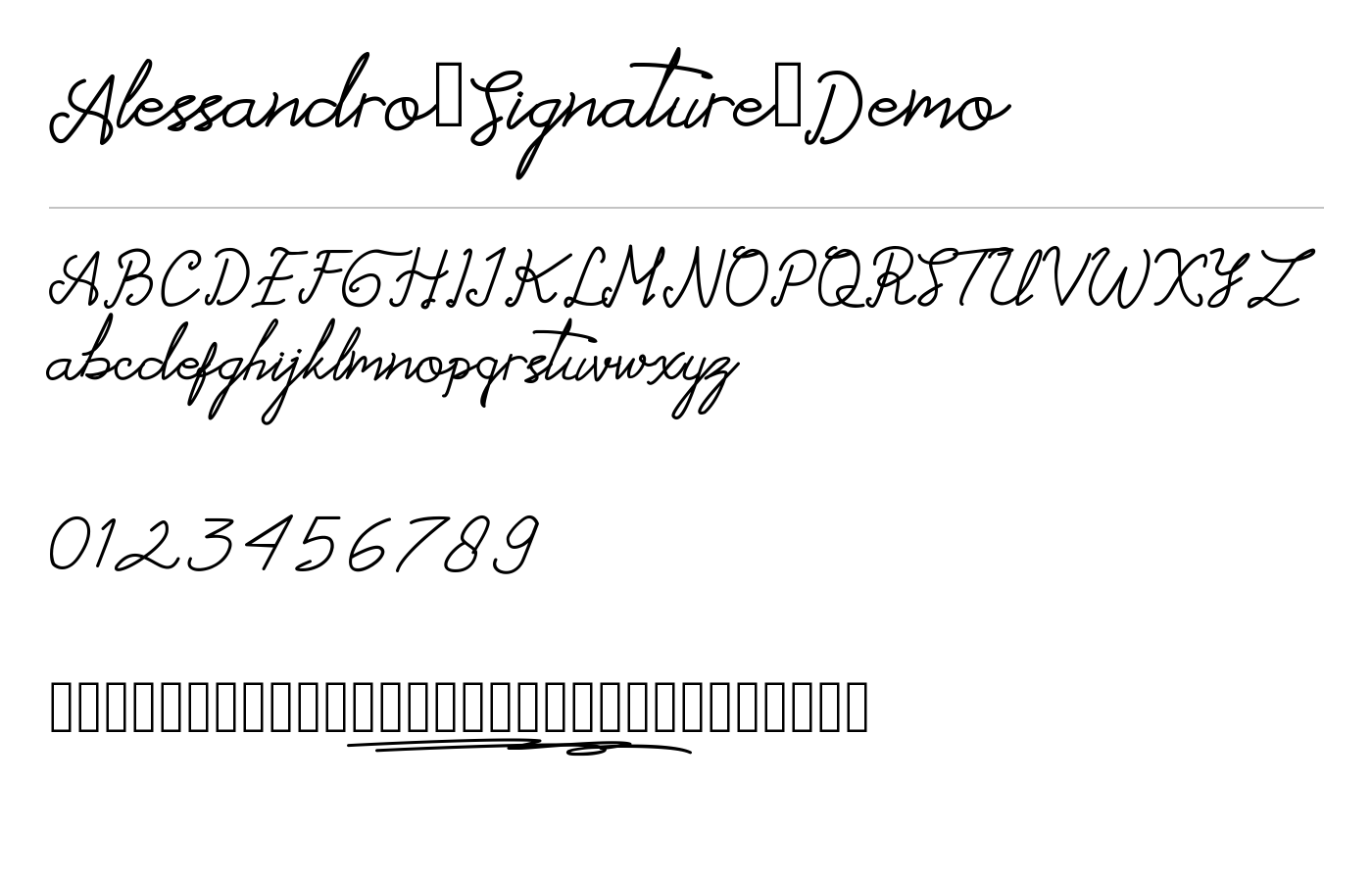
Alessandro_Signature_Demo is a flowing, elegant script font that mimics natural handwriting with smooth, connected strokes and a lively, personal touch. Its thin weight and slight slant create a delicate yet confident style, ideal for branding, invitations, and personal signatures that require a sophisticated and approachable feel. This font works best in contexts where a stylish, handwritten aesthetic elevates the design with charm and authenticity.
Alessandro_Signature_Demo Font